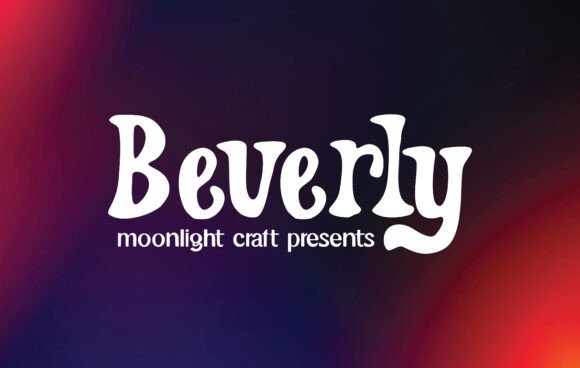
The Ultimate Design Companion: Unleashing the Power of Beverly Font
I’ll never forget the time I was working on a magazine cover design, pouring my heart and soul into the project, but struggling to find the perfect font. My client wanted something that was both eye-catching and easy to read, but I just couldn’t seem to find the right fit. That was until I stumbled upon Beverly Font. 💡
This font has been a game-changer for me, and I’m excited to share its awesomeness with you. Whether you’re a designer, crafter, or creative hobbyist, Beverly Font is about to become your new go-to favorite.
What Makes Beverly Font So Special?
Beverly Font is designed to be versatile, stylish, and incredibly easy to read. Its clear and concise design makes it perfect for a wide range of applications, from magazine covers and t-shirts to social media posts, branding, wedding invitations, and greeting cards.
Here are just a few reasons why I’m obsessed with Beverly Font:
• ✨ Versatile: Works beautifully for both titles and body text
• ✅ Easy to Read: Clear and concise design for maximum legibility
• 💃 Eye-catching: Adds a touch of personality and style to any design
Like any font, Beverly Font isn’t perfect, but its strengths far outweigh its weaknesses. Here’s my honest review:
• ✨ Consistency: Beverly Font looks great in any size or format
• ✅ Flexibility: Works well for both digital and print applications
• 📚 OpenType Features: Offers a range of glyphs and stylistic alternates to enhance your designs
While Beverly Font is an amazing font, there are a few things to keep in mind:
• 🤔 Limited Contrast: May not be the best choice for designs requiring high contrast between text and background
• ⚠️ Kerning: May require some manual adjustment for optimal results
The Story Behind Beverly Font
Beverly Font was designed with the goal of creating a versatile, stylish font that could be used for a wide range of applications. Inspired by classic typography and modern design trends, Beverly Font is the perfect blend of elegance and personality.
Font Name Beverly Font
Author moonlight craft
Q: What makes Beverly Font so versatile?
A: Beverly Font is designed to be clear, easy to read, and incredibly versatile, making it perfect for a wide range of applications.
Q: Does Beverly Font come with OpenType features?
A: Yes, Beverly Font includes a range of OpenType features, such as glyphs and stylistic alternates, to enhance your designs.
Q: Is Beverly Font suitable for body text?
A: Absolutely! Beverly Font is designed to be easy to read, making it perfect for both titles and body text.